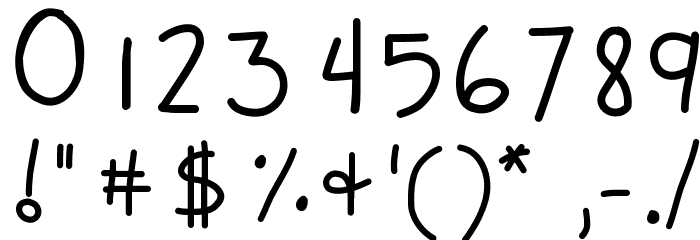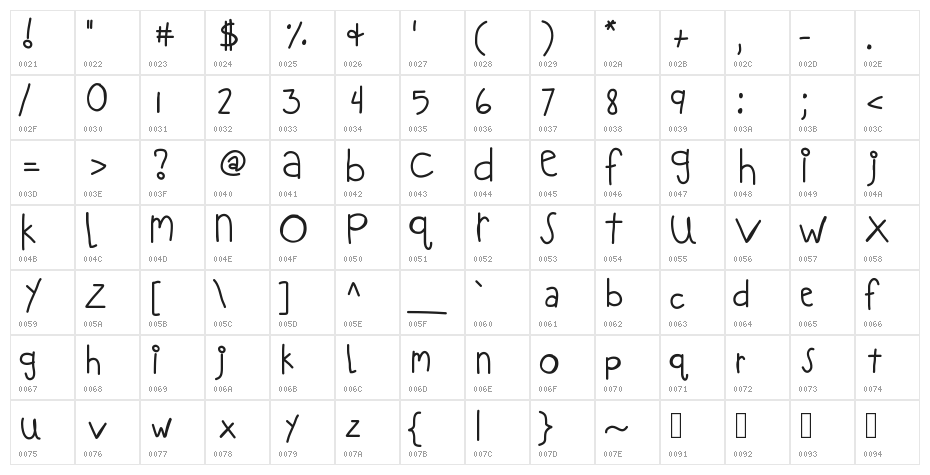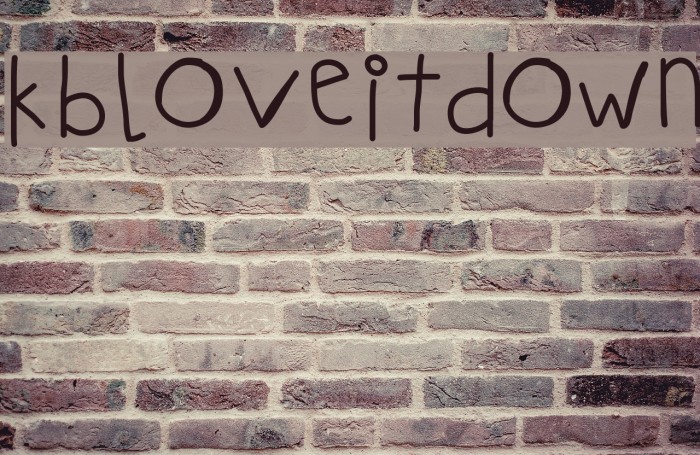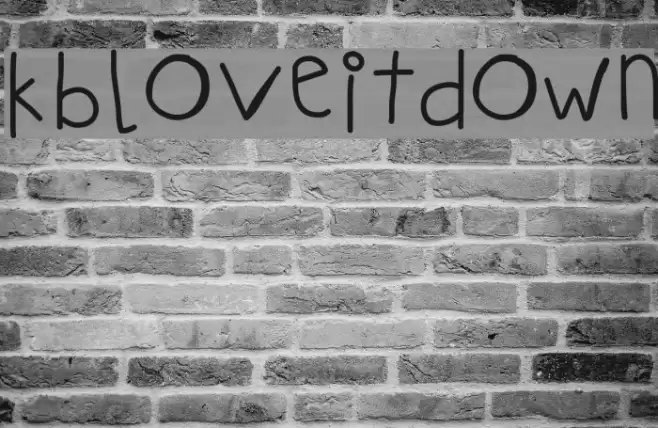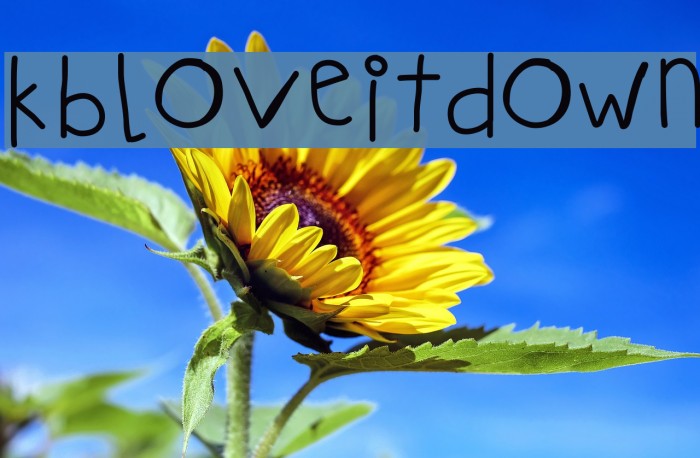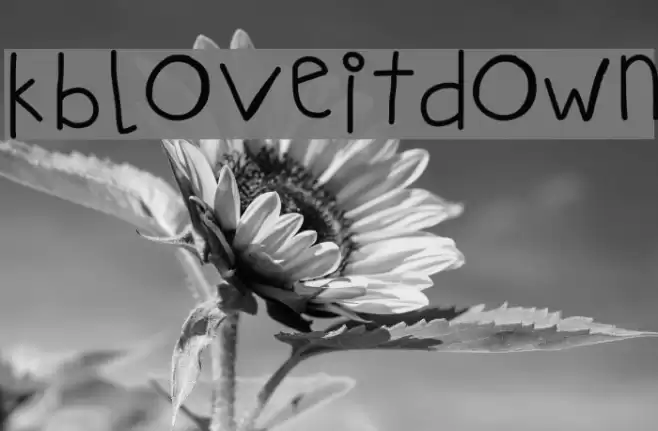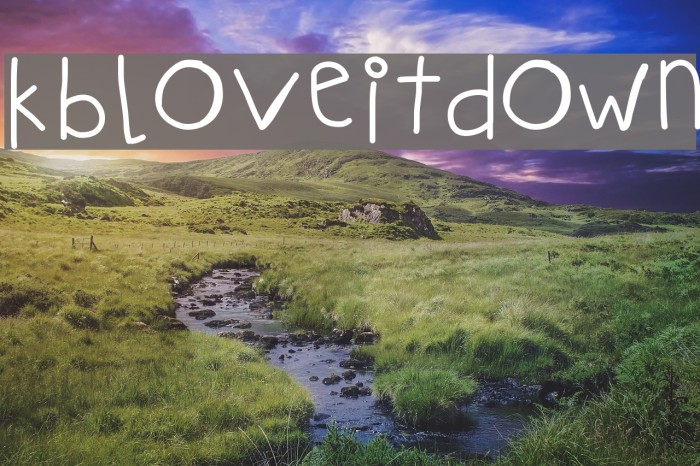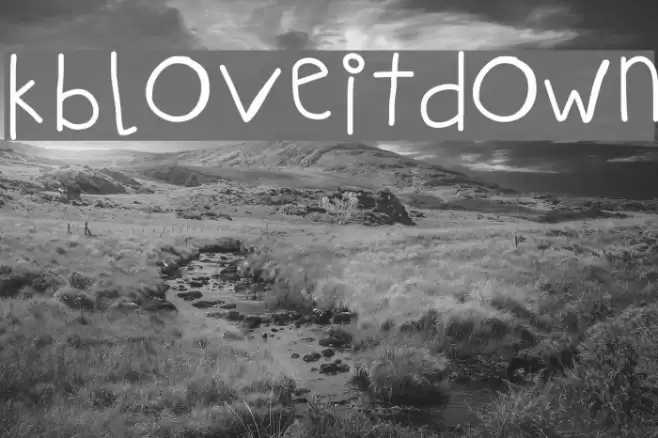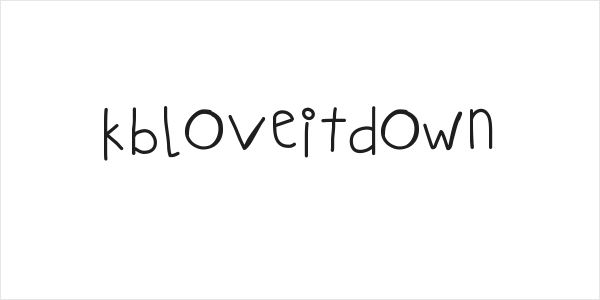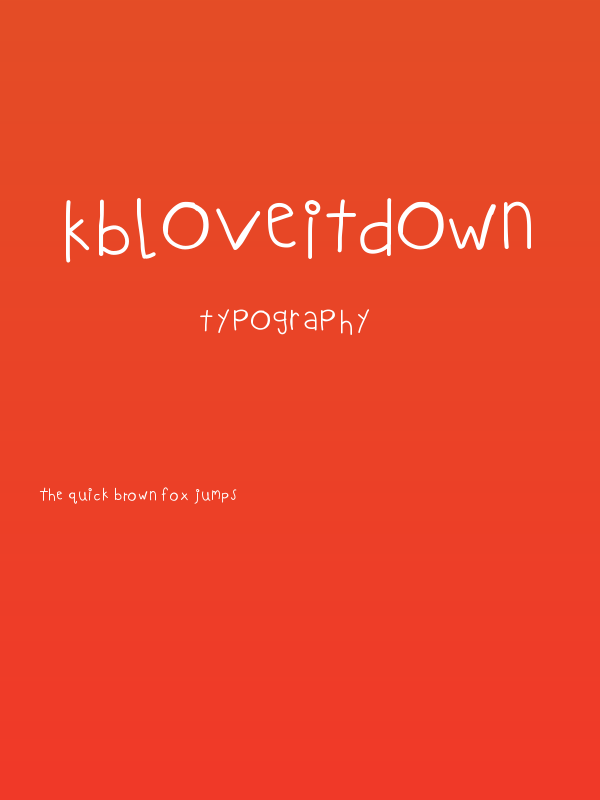
KBLOVEITDOWN Font
KBLOVEITDOWN Description
This playful and whimsical font features a handwritten style with a casual and friendly appearance. The characters are slightly irregular, adding a personal touch that mimics natural handwriting. The strokes are consistent in width, providing a uniform look while maintaining a relaxed vibe. The font includes both uppercase and lowercase letters, numerals, and a variety of special characters, making it versatile for different uses. Its informal style is suitable for projects that require a human touch, such as greeting cards, invitations, or children's books.
| Proposed Projects | Ideal for greeting cards, invitations, children's books, and personal projects. |